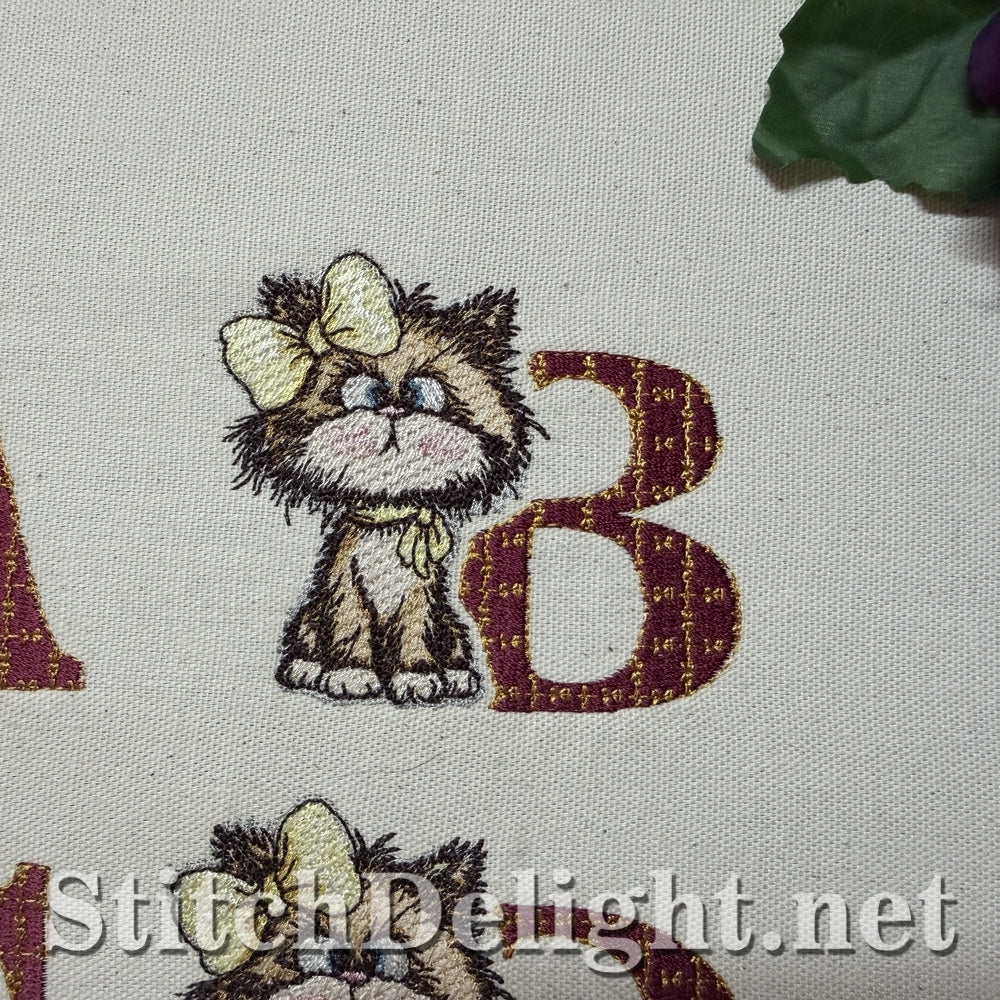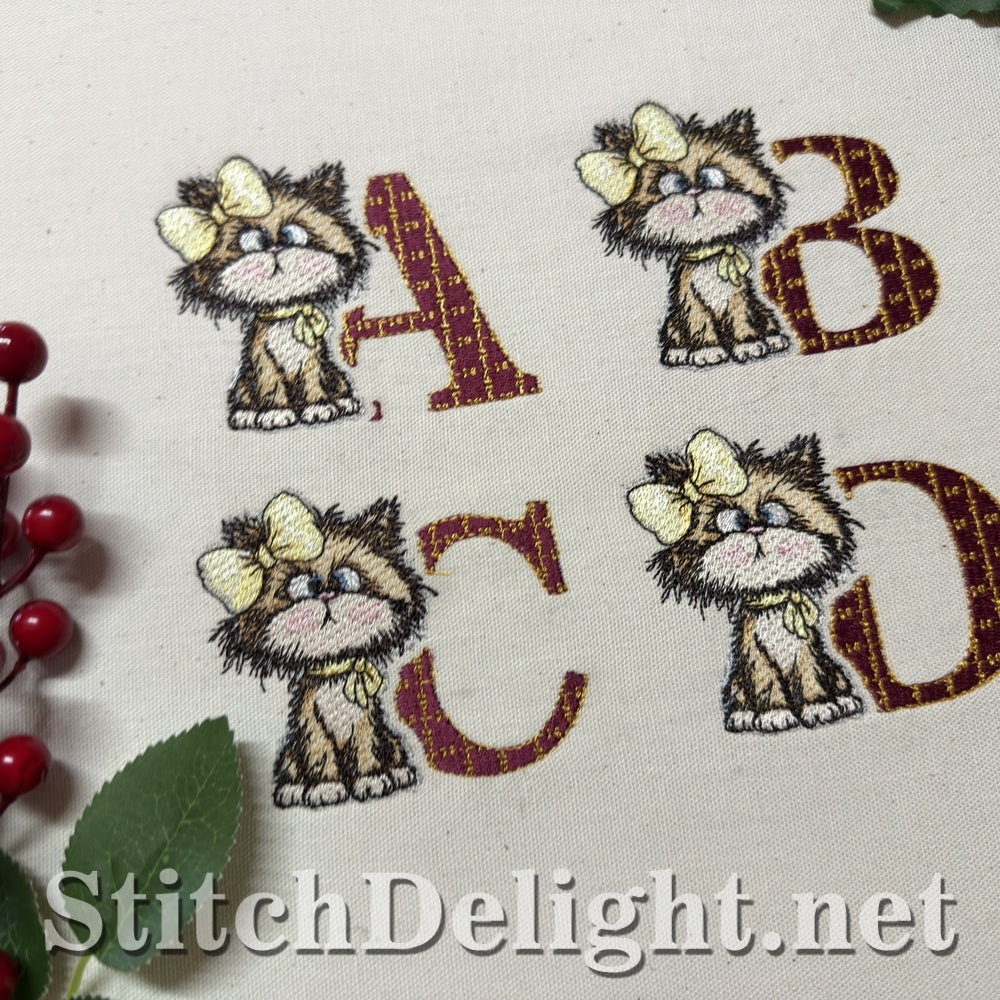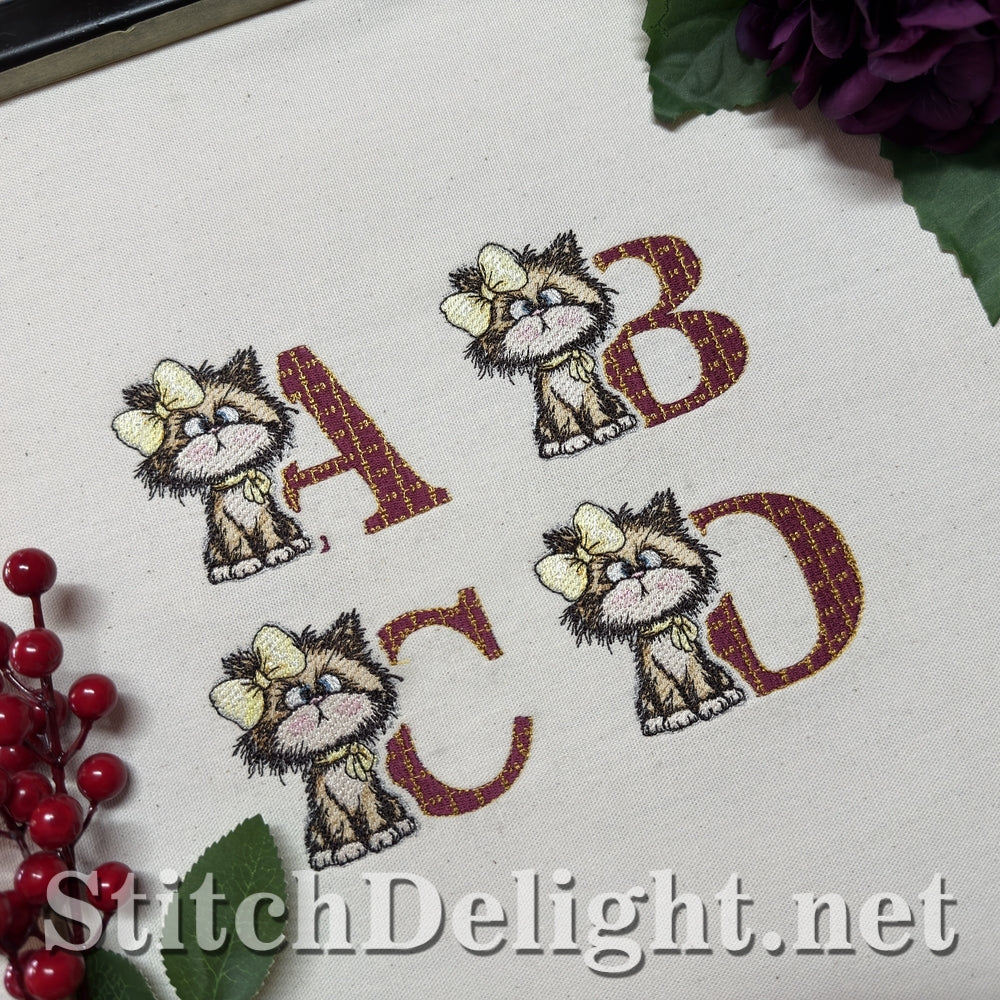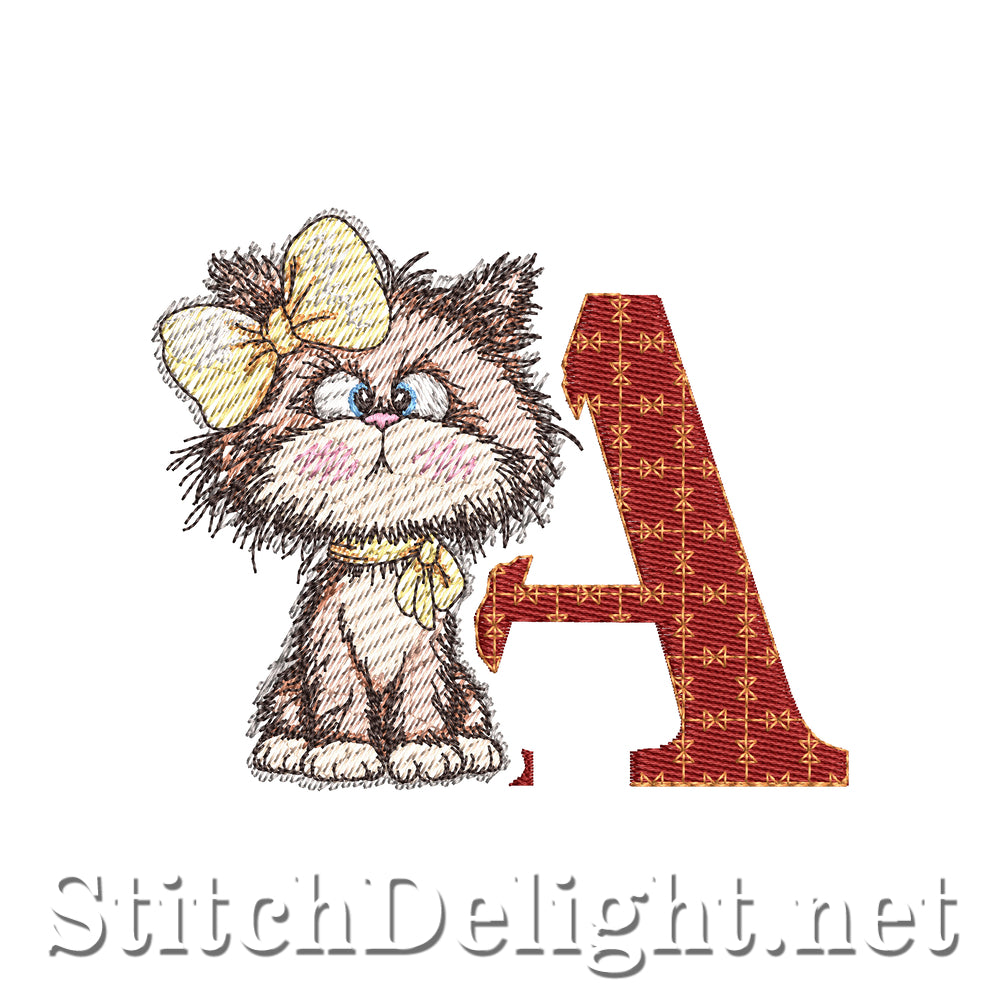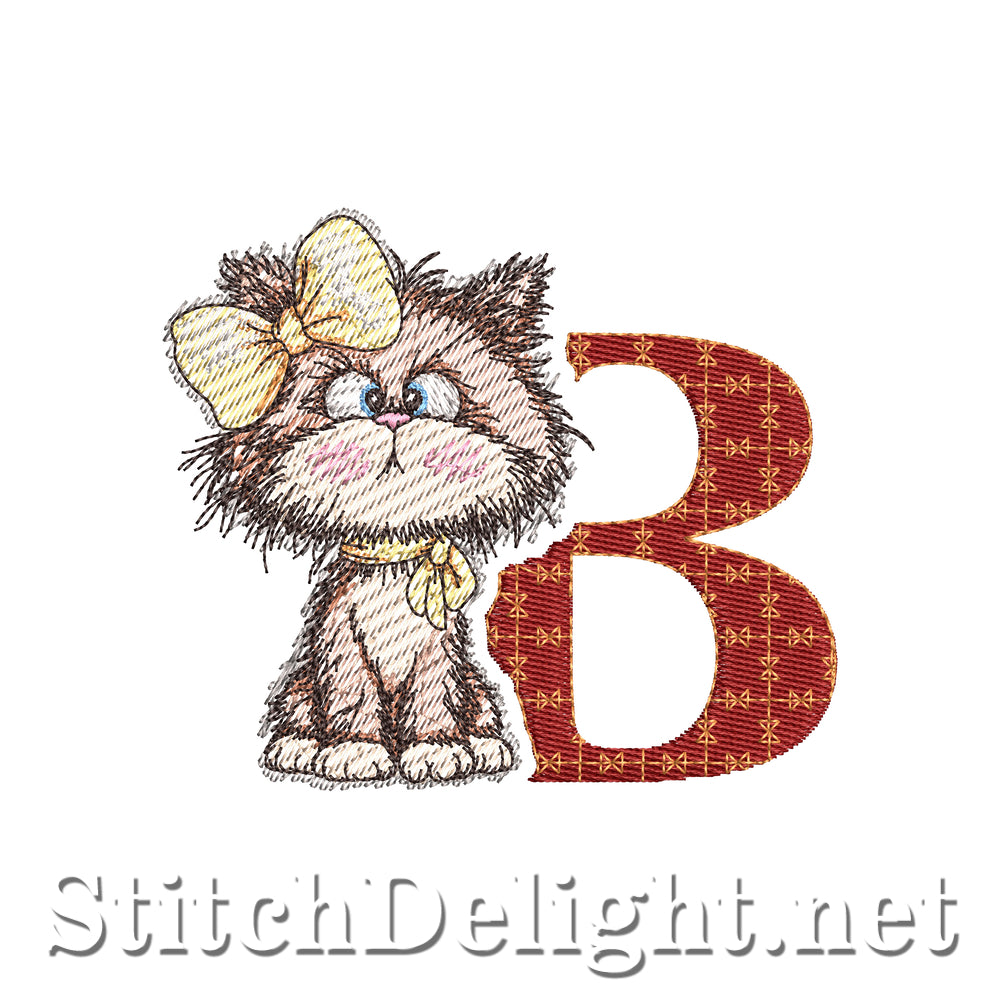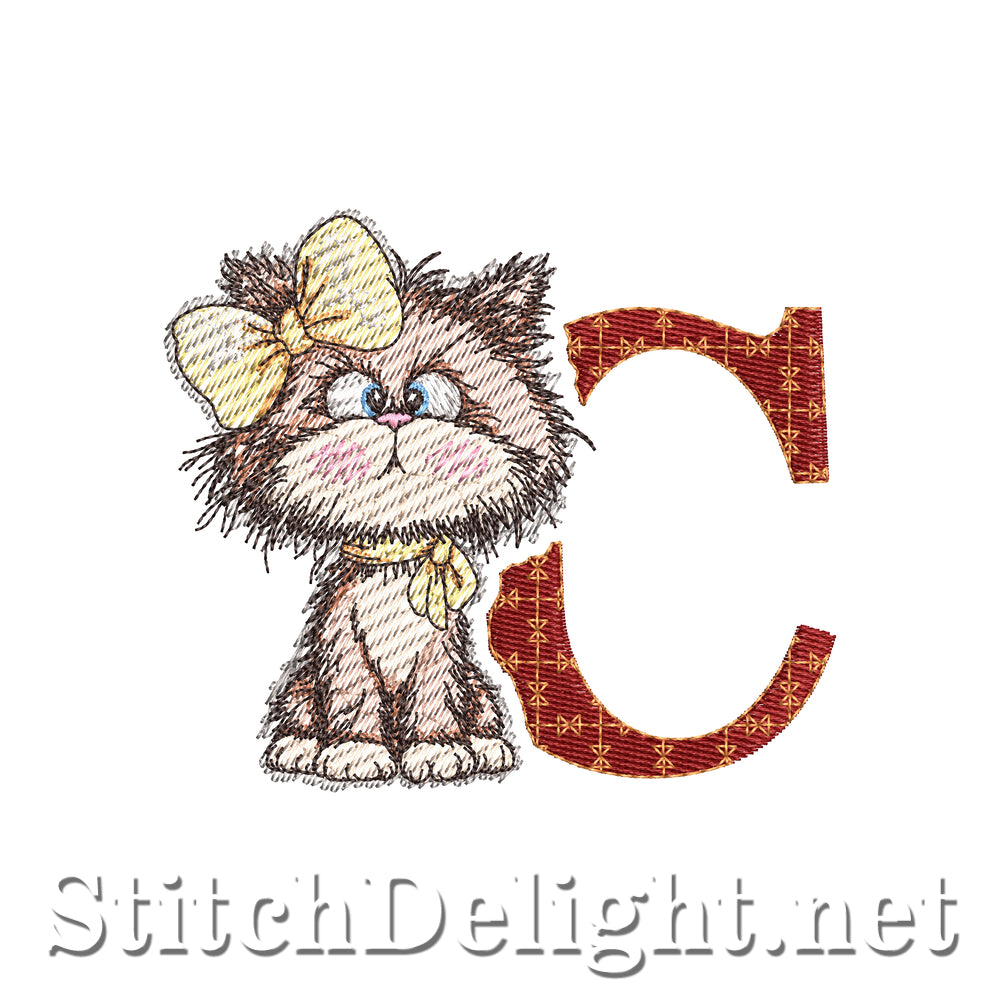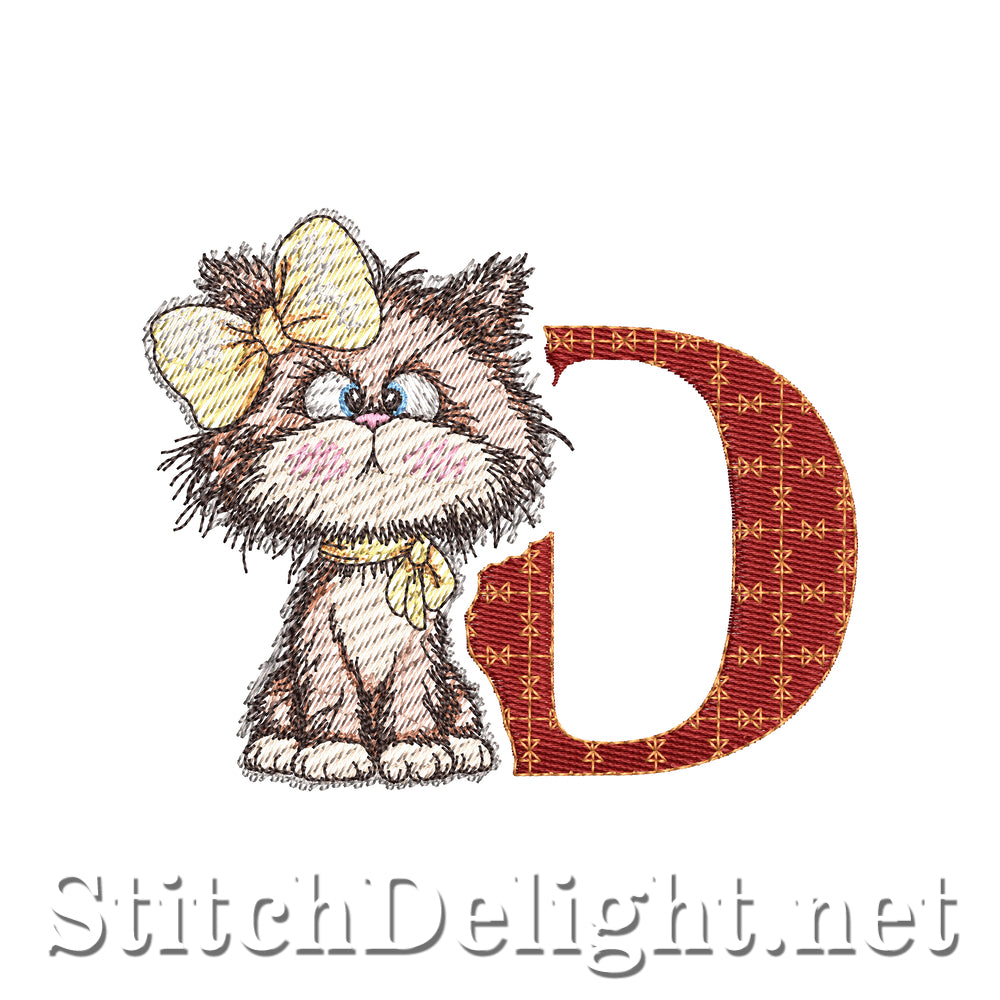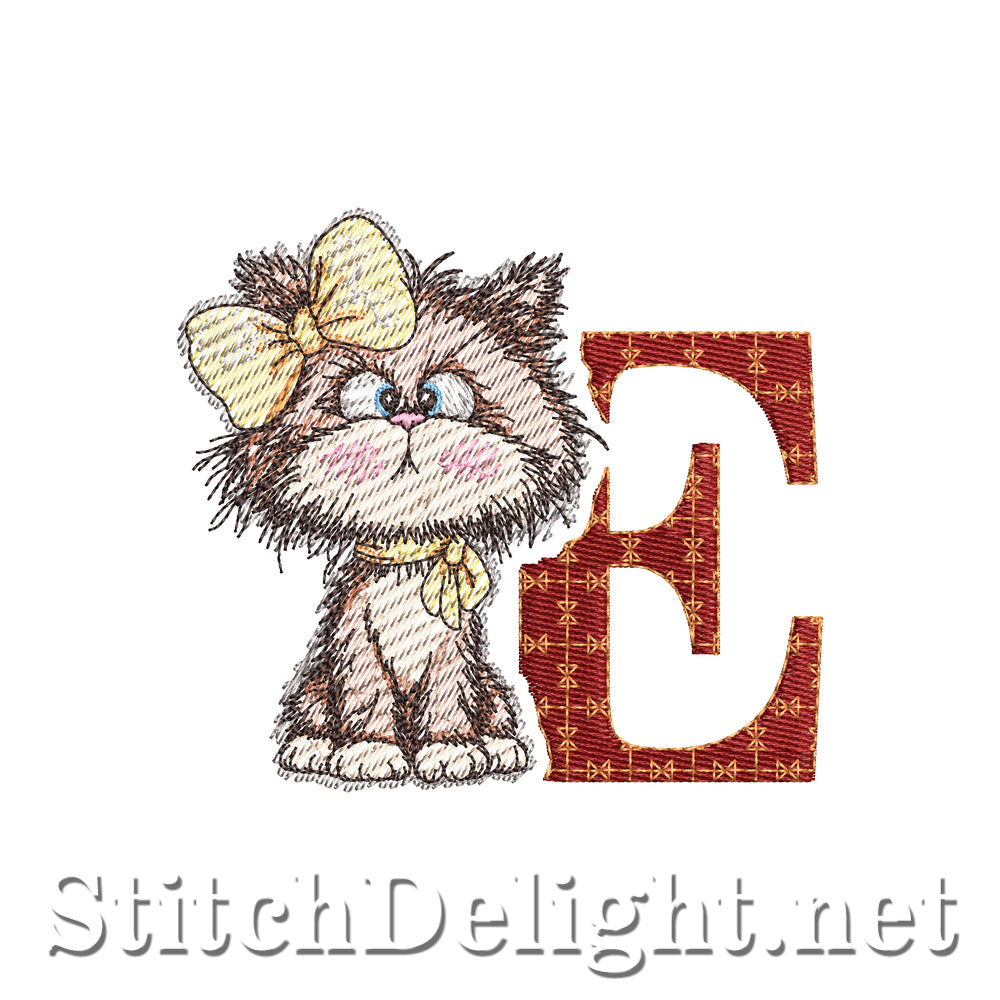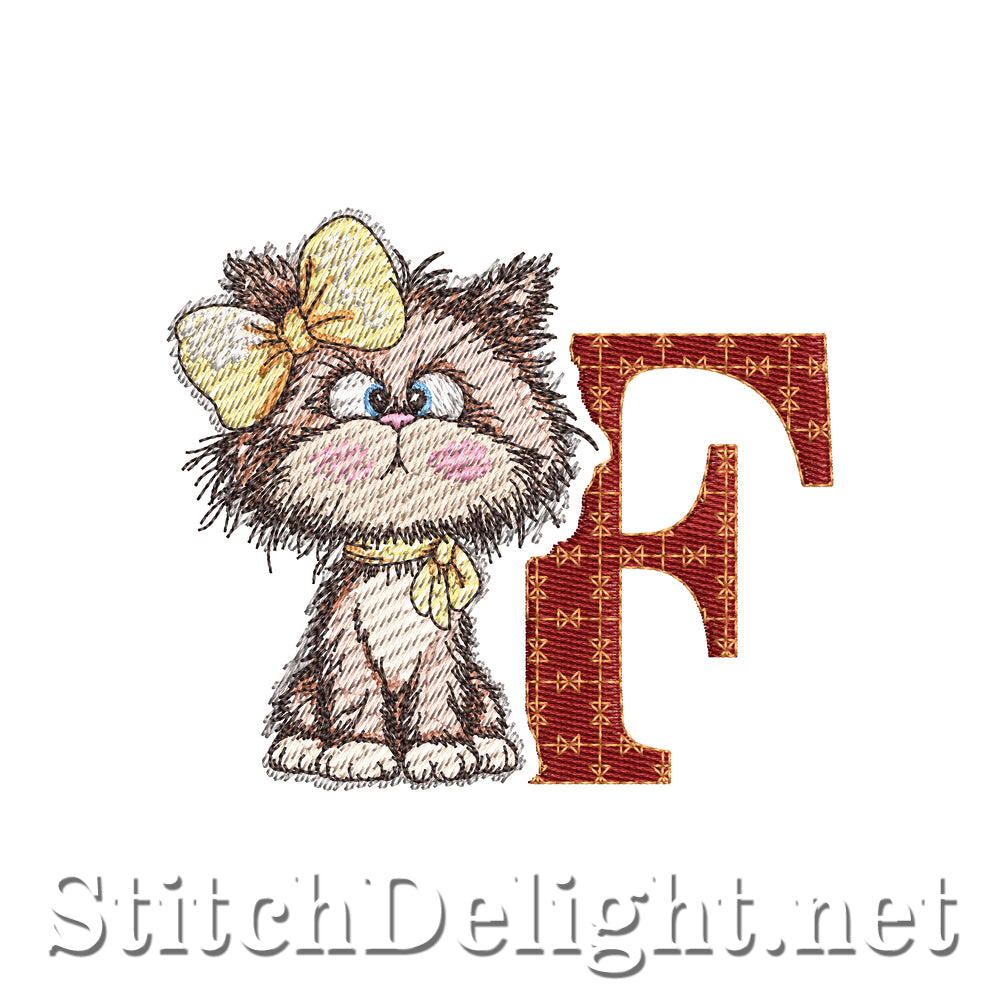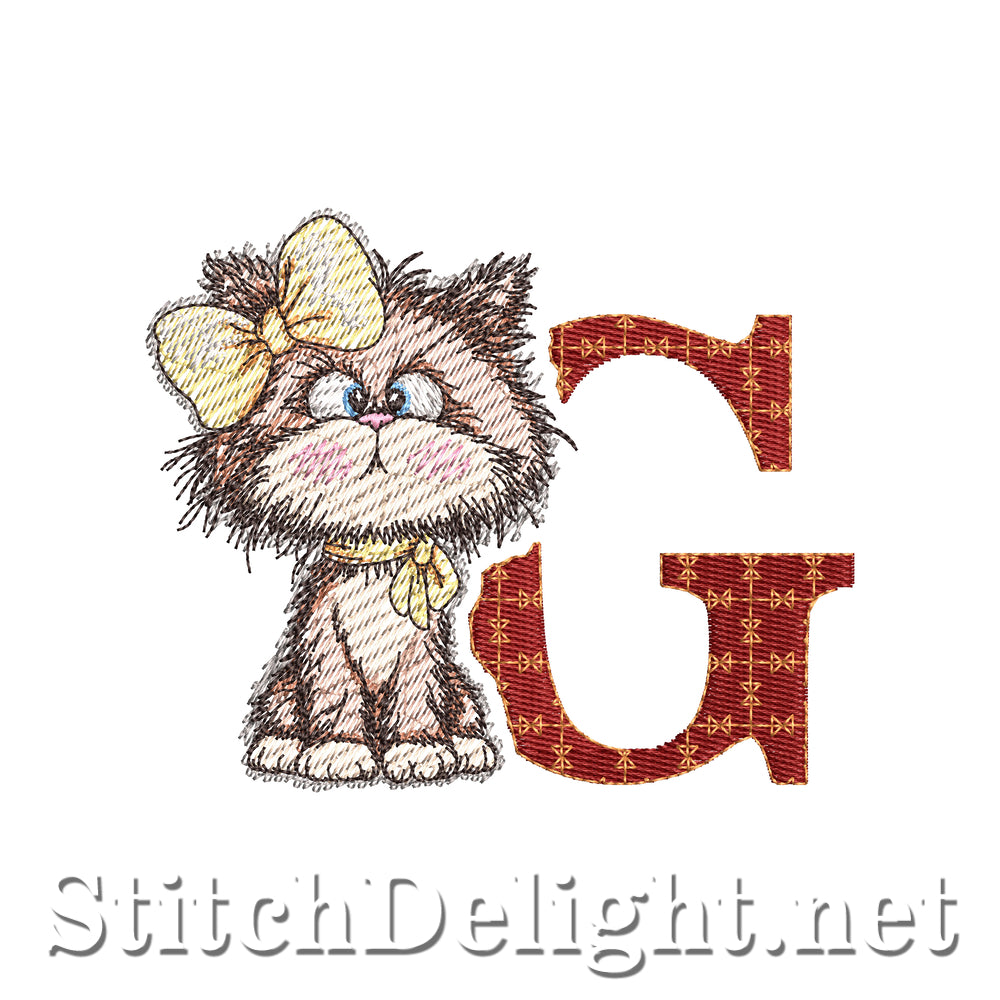
February 2026 Collector’s Font – Feline Font
The February 2026 Collector’s Font is a charming, adorable embroidered alphabet designed to add personality and warmth to your projects. Each letter in this font features a cute character-style illustration paired with a decorative alphabet letter, making it perfect for children’s embroidery, baby gifts, nursery decor, name personalization, and keepsake projects.
The font has an average stitched height of 73.6 mm (approximately 2.9 inches), providing excellent detail while remaining versatile for a wide range of hoop sizes and applications.